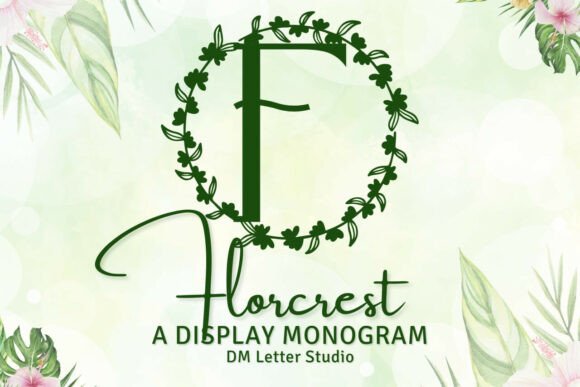
Introducing Florcrest Monogram Font: Elevate Your Designs with Elegance
Are you a designer or crafter looking for a font that can add a touch of sophistication and elegance to your work? Look no further than Florcrest Monogram Font. This beautiful font is designed to turn initials into stunning emblems with a subtle botanical twist, making it perfect for a variety of applications, from wedding suites to boutique logos and premium packaging.
The Characteristics of Florcrest Monogram Font
Florcrest Monogram Font is characterized by its clean and poised strokes, which give it a refined and sophisticated feel. The curves of the font are open, ensuring that even tiny tags remain clear and legible. This makes it an excellent choice for designs where clarity and precision are essential.
Versatility and Pairing Options
One of the standout features of Florcrest Monogram Font is its versatility. It pairs beautifully with soft serifs and modern sans fonts, allowing you to create refined and polished layouts with ease. This means you can use Florcrest to add a touch of elegance to your designs without worrying about it clashing with other fonts.
Applications of Florcrest Monogram Font
So, where can you use Florcrest Monogram Font? The possibilities are endless, but here are a few ideas to get you started:
- Wedding Suites: Create beautiful wedding monograms, invitations, and stationery with Florcrest.
- Boutique Logos: Use Florcrest to create elegant and sophisticated logos for your boutique or small business.
- Keepisake Gifts: Add a personal touch to keepsake gifts, such as jewelry, candles, or home decor items.
- Premium Packaging: Elevate your packaging designs with Florcrest’s refined and polished look.
Using Florcrest Monogram Font: Tips and Tricks
To get the most out of Florcrest Monogram Font, here are a few tips and tricks to keep in mind:
- Set single, double, or triple initials: Use Florcrest to create stunning monograms with single, double, or triple initials.
- Frame with laurel rings, oval borders, or fine rules: Add an extra touch of elegance to your designs by framing your monograms with laurel rings, oval borders, or fine rules.
- Symmetry is key: Florcrest’s proportions favor symmetry, making it easy to create polished compositions in minutes.
In conclusion, Florcrest Monogram Font is a beautiful and versatile font that can add a touch of elegance and sophistication to a wide range of designs. With its clean and poised strokes, open curves, and subtle botanical twist, Florcrest is perfect for designers and crafters looking to create stunning monograms, logos, and packaging designs. So why wait? Try Florcrest Monogram Font today and see the difference it can make in your designs.